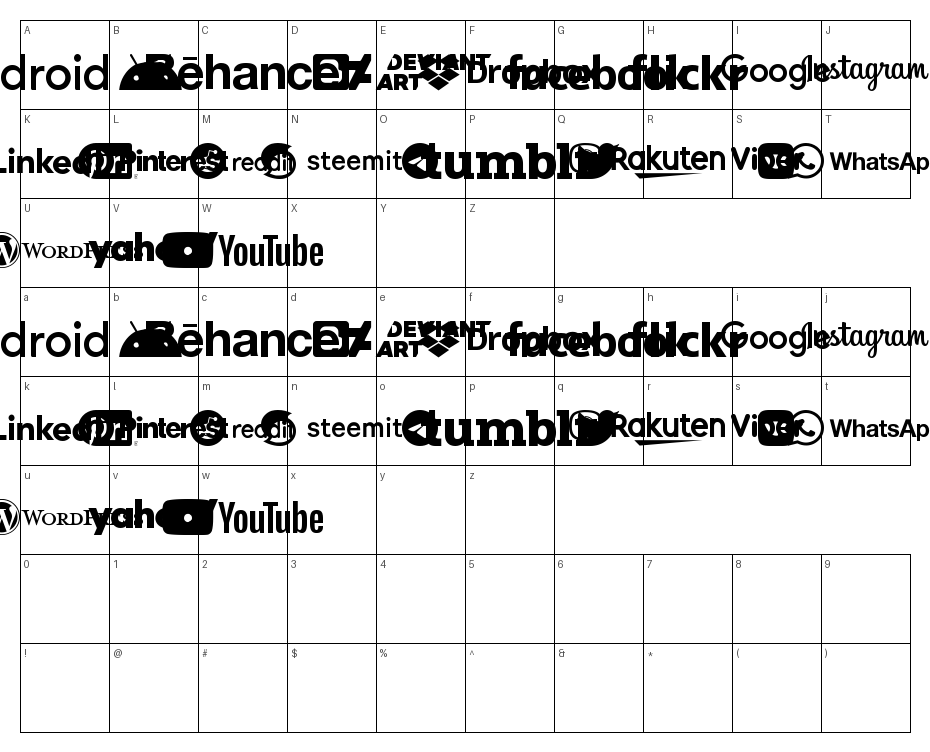
Designer Note
Some brands like Apple, Blogger, Telegram, Twitter and VK, exists in logomark only, AKA, with no text.
A. Android
B. Apple
C. Behance
D. Blogger
E. DeviantArt
F. Dropbox
G. Facebook
H. Flickr
I. Instagram
J. LinkedIn
K. Pinterest
L. Reddit
M. Steemit
N. Telegram
O. Tumblr
P. Twitter
Q. Viber
R. VKontakte (VK)
S. Whatsapp
U. WordPress
W. Yahoo!
X. Youtube
Font Name: Social Logos